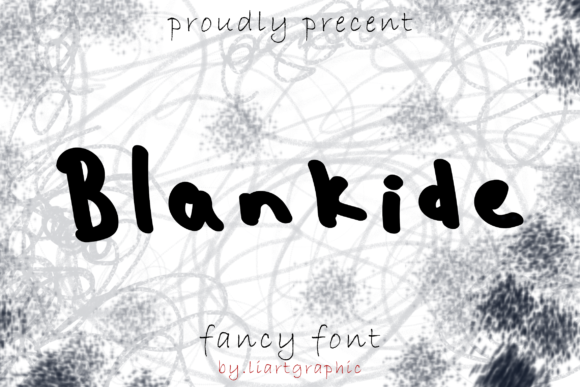
Introducing Blankide Font: The Cute and Quirky Handwritten Font for Creative Minds
Are you a designer, crafter, or DIY enthusiast looking for a unique and playful font to add a personal touch to your projects? Look no further than Blankide Font! This adorable handwritten font is perfect for creating eye-catching designs that stand out from the crowd. With its natural and quirky style, Blankide Font is incredibly versatile and can be used for a wide range of creative endeavors.
The Charm of Blankide Font
Blankide Font is a one-of-a-kind handwritten font that exudes a sense of playfulness and whimsy. Its unique and natural style makes it perfect for designers and crafters who want to add a personal touch to their work. Whether you’re creating a logo, a poster, a social media graphic, or a handmade craft, Blankide Font is sure to bring a smile to your audience’s faces.
What Makes Blankide Font So Special?
So, what sets Blankide Font apart from other fonts out there? Here are just a few reasons why this font is a cut above the rest:
- Unique and Quirky Style: Blankide Font has a one-of-a-kind style that’s both playful and charming. Its quirky and irregular shapes make it perfect for creating eye-catching designs that stand out from the crowd.
- Natural and Handwritten Look: Unlike other fonts that can look stiff and formal, Blankide Font has a natural and handwritten look that’s perfect for creating a personal and relatable feel.
- Versatile and Adaptable: Whether you’re creating a logo, a poster, or a social media graphic, Blankide Font is incredibly versatile and can be used for a wide range of creative endeavors.
How to Use Blankide Font in Your Designs
Now that you know a little bit about Blankide Font, let’s talk about how to use it in your designs. Here are a few ideas to get you started:
- Logos and Branding: Use Blankide Font to create a unique and memorable logo that reflects your brand’s personality.
- Posters and Flyers: Add a playful touch to your posters and flyers with Blankide Font. It’s perfect for creating eye-catching headlines and titles.
- Social Media Graphics: Use Blankide Font to create engaging and shareable social media graphics that stand out from the crowd.
- Handmade Crafts: Add a personal touch to your handmade crafts, such as cards, gift tags, and scrapbook pages, with Blankide Font.
Tips and Tricks for Working with Blankide Font
Here are a few tips and tricks to keep in mind when working with Blankide Font:
- Pair with Other Fonts: Try pairing Blankide Font with other fonts to create a unique and interesting contrast.
- Use for Headlines and Titles: Use Blankide Font for headlines and titles to add a playful touch to your designs.
In conclusion, Blankide Font is a cute and quirky handwritten font that’s perfect for designers, crafters, and DIY enthusiasts who want to add a personal touch to their projects. With its natural and unique style, Blankide Font is incredibly versatile and can be used for a wide range of creative endeavors. So why wait? Download Blankide Font today and let your imagination run wild!